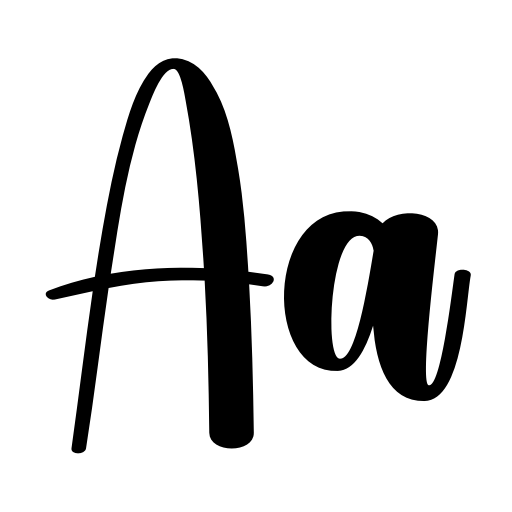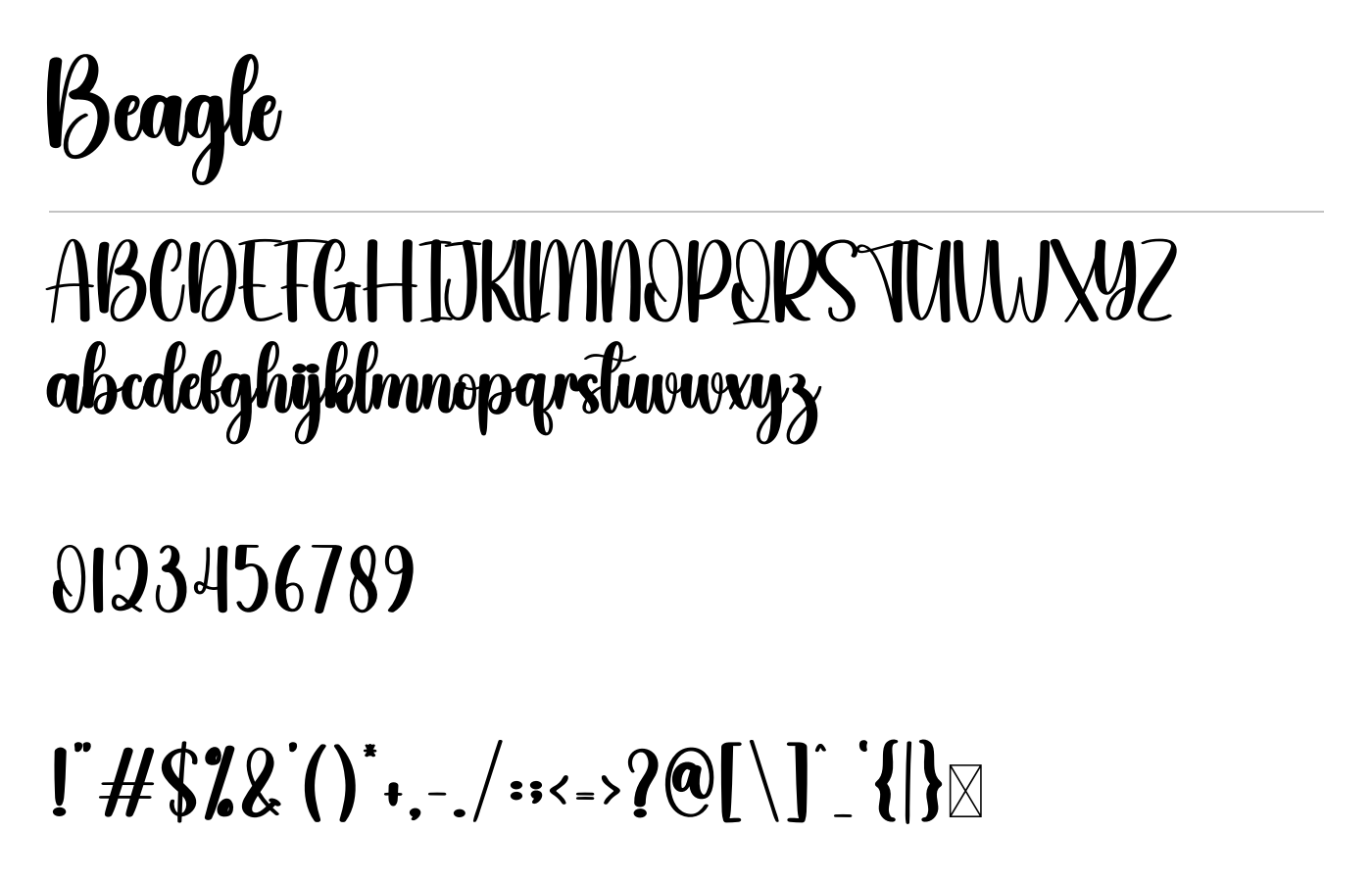
Beagle is a playful and modern script font with a lively, hand-drawn feel. Its bold strokes and whimsical letter shapes give it a friendly and approachable personality, making it ideal for creative projects, branding, and invitations that seek a casual yet stylish look. This font works well in headlines and decorative text where a fun and energetic vibe is desired.
Beagle Font
About Beagle Font